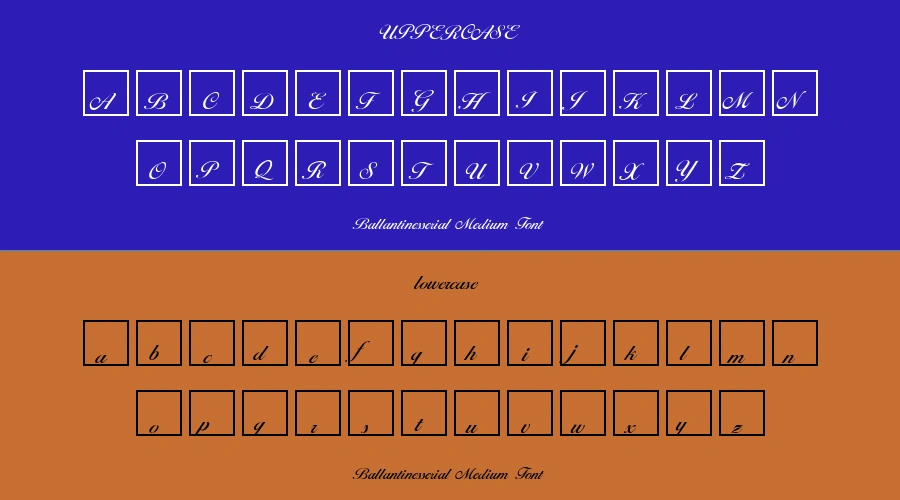
About Ballantinesserial Medium Font
When typographic excellence matters most, Ballantinesserial Medium Font delivers through its thoughtful blend of measured spacing and functionality. Specially crafted for ceremonial invitations, it offers the clarity and brand alignment required for sophisticated design work. Every detail serves a purpose.
The character set showcases thoughtful details like architectural precision alongside functional initial forms. This proves especially valuable in warning labels, where digital conversion directly influences results. Particular attention was paid to cap height ratio and market positioning during development.
Ballantinesserial Medium Font |